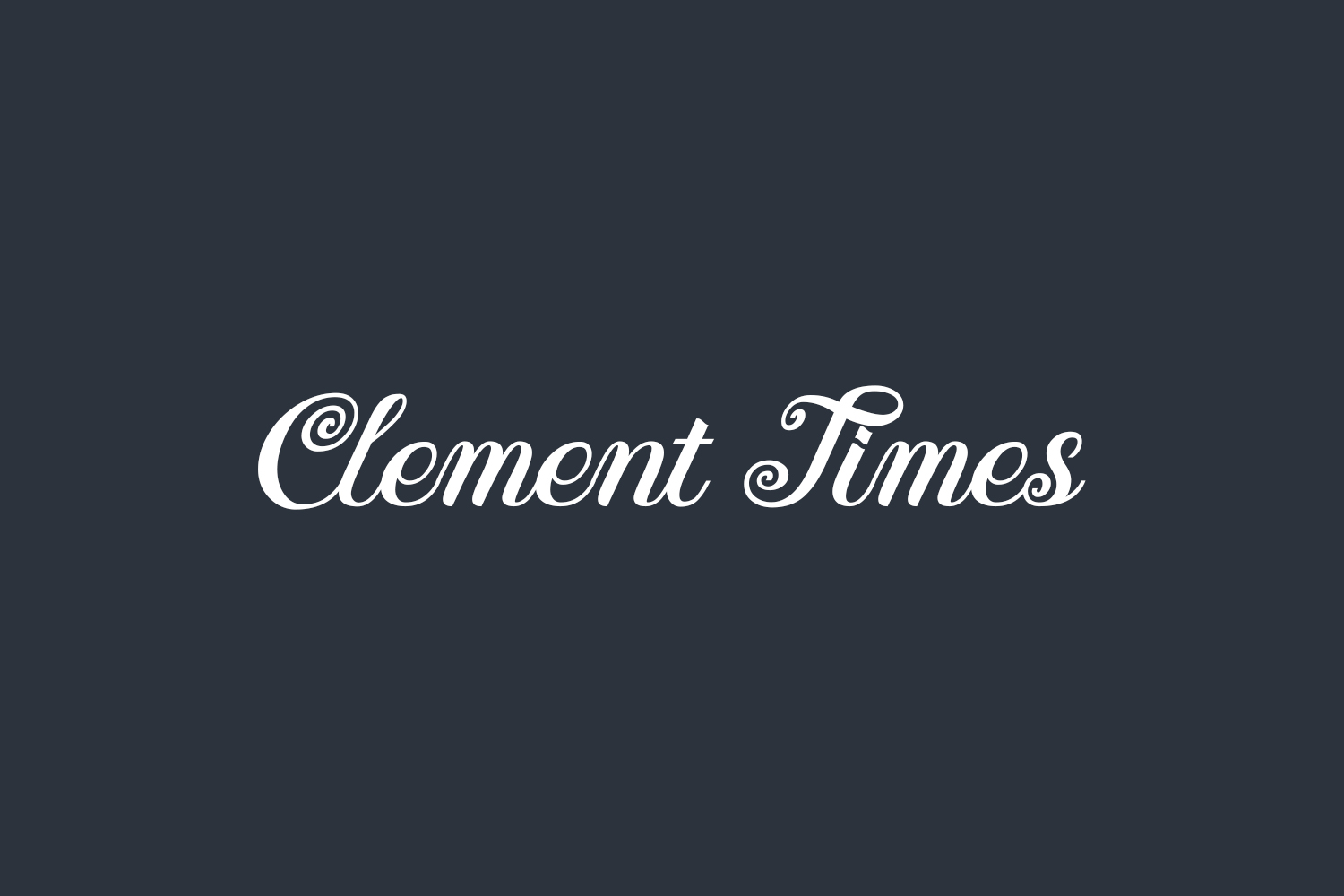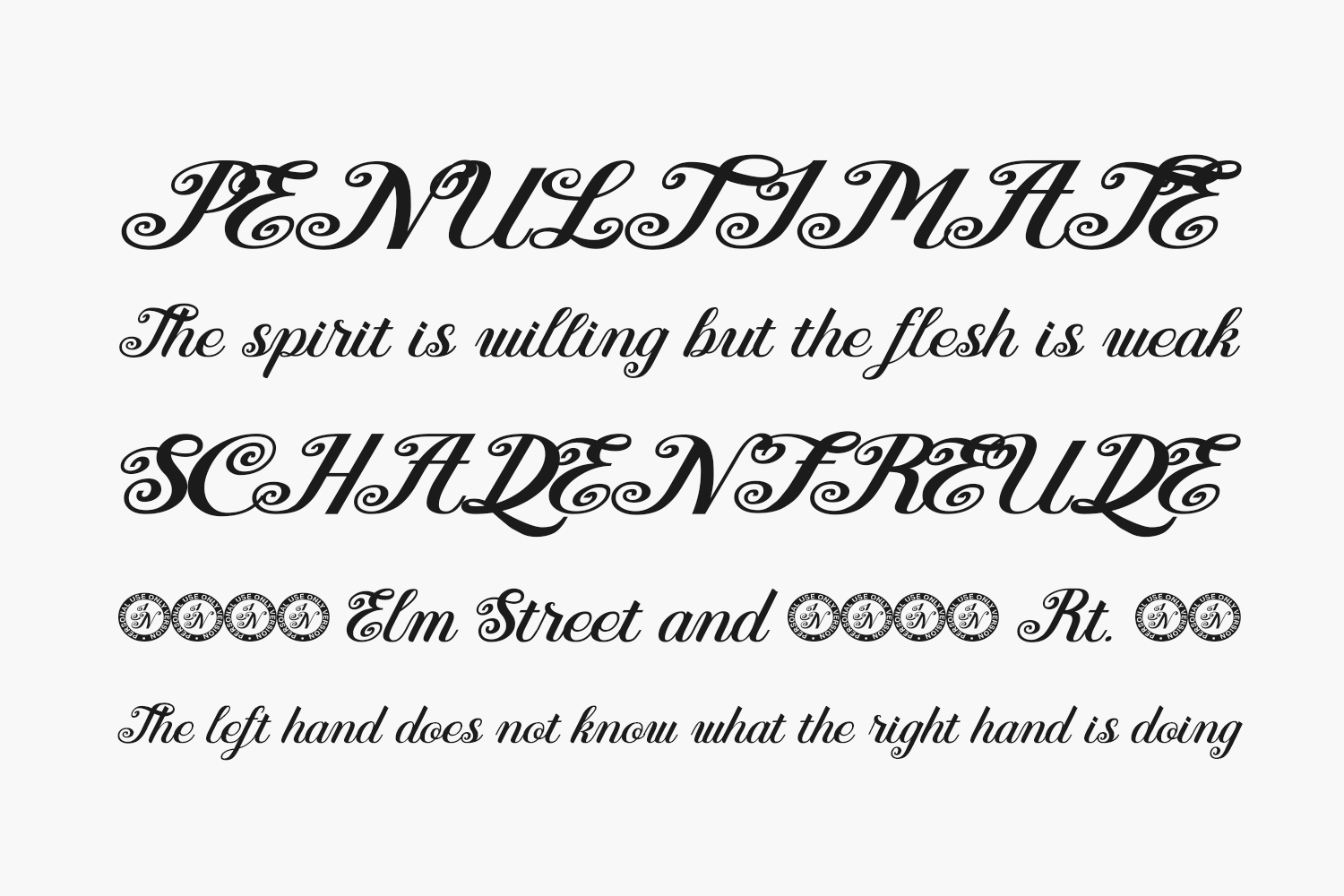
Clement Times Free Font is a delicate and well-balanced script font. It will add a luxury spark to any design project that you wish to create. Clement Times Free Font is a demo and free for personal use only. Please purchase the full version for commercial use.